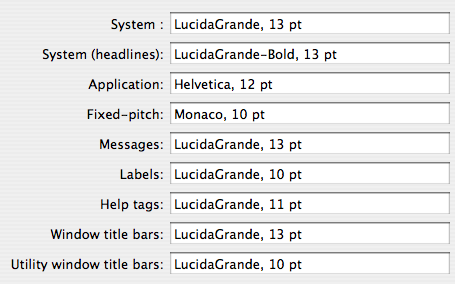
tombarnes macrumors 6502 Original poster Jan 6, 2007 #1 Does anyone know what the default apple font is? E.g. The font they use by default in OS X, and in all their presentations? Many thanks, Tom
Does anyone know what the default apple font is? E.g. The font they use by default in OS X, and in all their presentations? Many thanks, Tom
SuperCompu2 macrumors 6502a Jan 6, 2007 #3 The font used on Apple products such as iPods and the word iMac on the back of such a computer is "Myriad Pro". There are many variations of Myriad Pro, but I believe the type used by Apple is Myriad Pro SemiBold here's a test of the font:
The font used on Apple products such as iPods and the word iMac on the back of such a computer is "Myriad Pro". There are many variations of Myriad Pro, but I believe the type used by Apple is Myriad Pro SemiBold here's a test of the font: